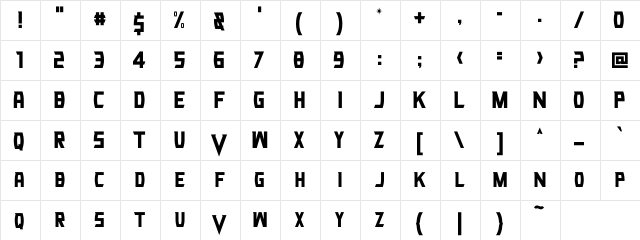
VG KNIGHTS Regular
Design Context for VG KNIGHTS Typeface
VG KNIGHTS is a composed and adaptable typeface that performs quietly and consistently across a wide range of design contexts.
Pro Tip: Use VG KNIGHTS in both headline and body roles to test its range before committing to a single application.